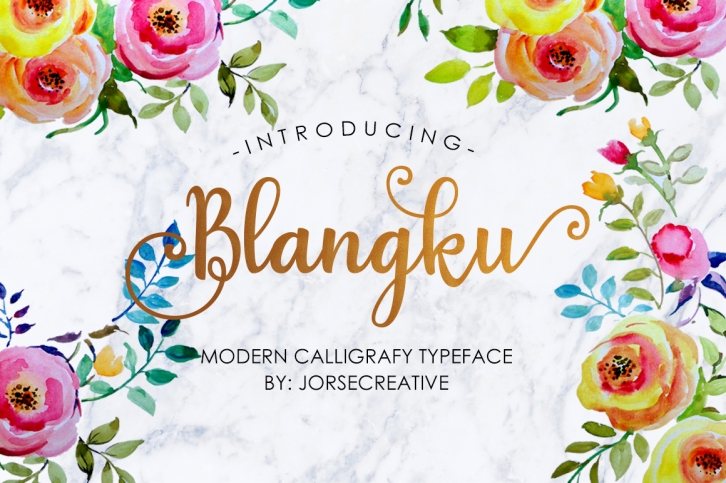
Blangku Font Download
Blangku is a gorgeous font that was realeased on May 4, 2017. The font can be used in many style contexts and design environments. Perfect for invitations, magazines, websites, logos, and more! It was designed by Jorsecreative and the file size is 15.63 MB. Thanks for checking out this font!